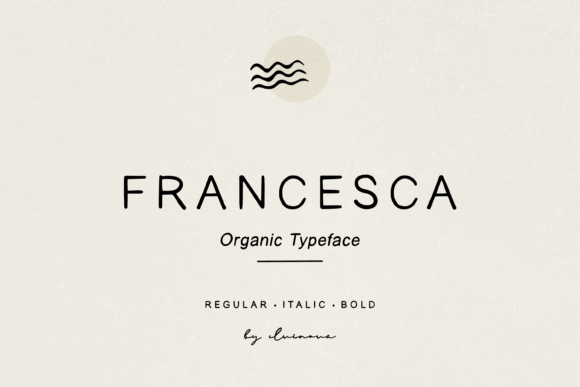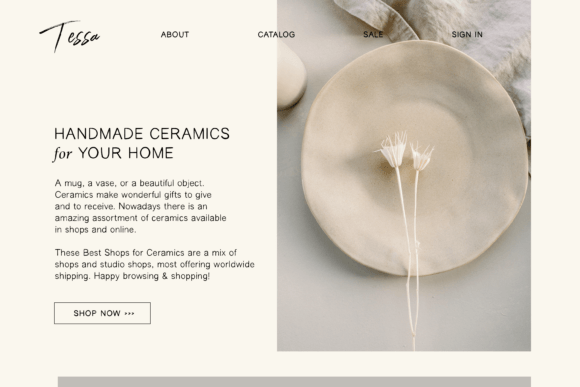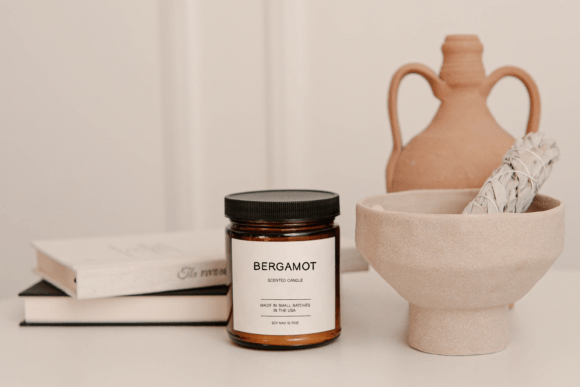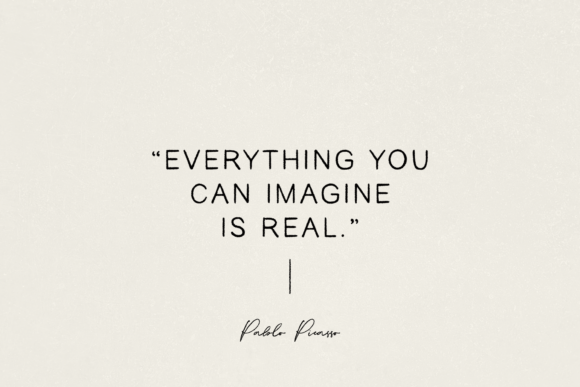
Francesca Font: A Modern Minimalist Sans Serif for Branding & DIY
About the Francesca Font
Get ready to be inspired by Francesca Font, a fresh and dynamic typeface for modern creators. Francesca is a sweet and simple handwritten sans-serif font. It has a friendly and playful style, perfect for cards, invitations, or fun designs. Its soft curves make it easy to read while adding a personal, creative touch.
Francesca’s friendly personality makes it ideal for projects requiring a lighthearted and approachable feel, such as branding for children’s products, invitations to casual events, or packaging for sweet treats. It also works well in short headlines or quotes within larger designs. However, its informal style is less suitable for body text or applications demanding high readability over extended lengths, like books or lengthy website content. Avoid using it in user interfaces (UI) where clear legibility is paramount.
Pairing Francesca with a clean sans-serif like Open Sans for body copy provides a strong contrast and enhances readability. For a more sophisticated look, consider pairing it with a classic serif font such as Garamond for supporting text or logos, adding a touch of elegance. A geometric sans-serif, like Montserrat, could also work well for a modern and balanced aesthetic.
The overall mood of Francesca is cheerful and inviting, making it a great choice for brands aiming for a youthful and playful image. Its soft curves and informal character create a sense of warmth and approachability.
Francesca Font Usage Examples
Francesca Font Example